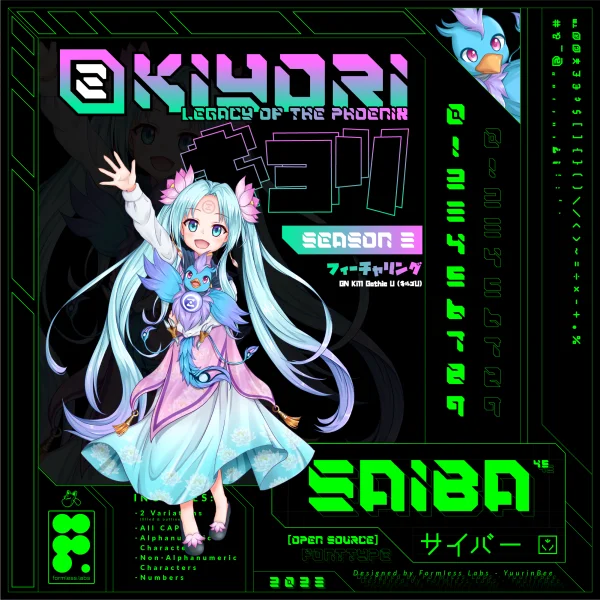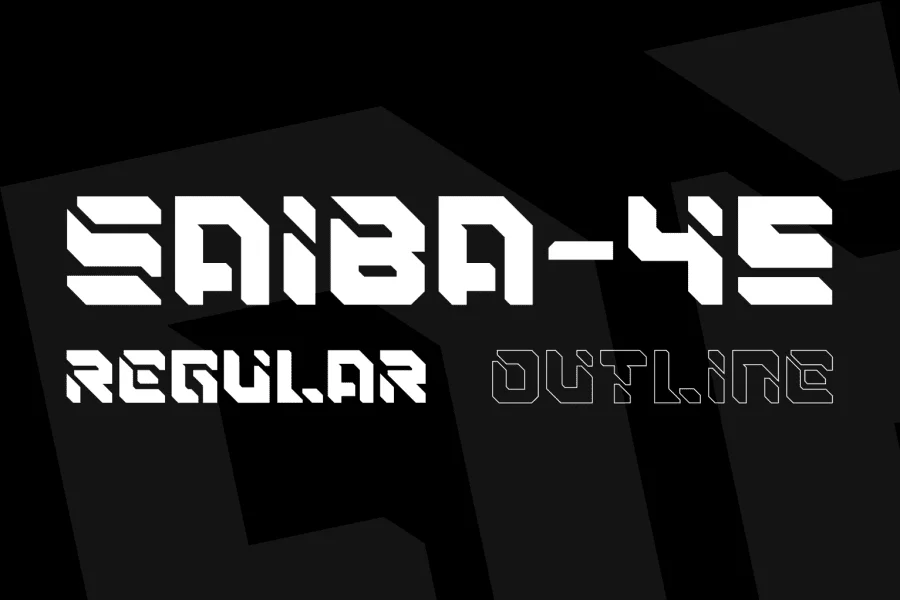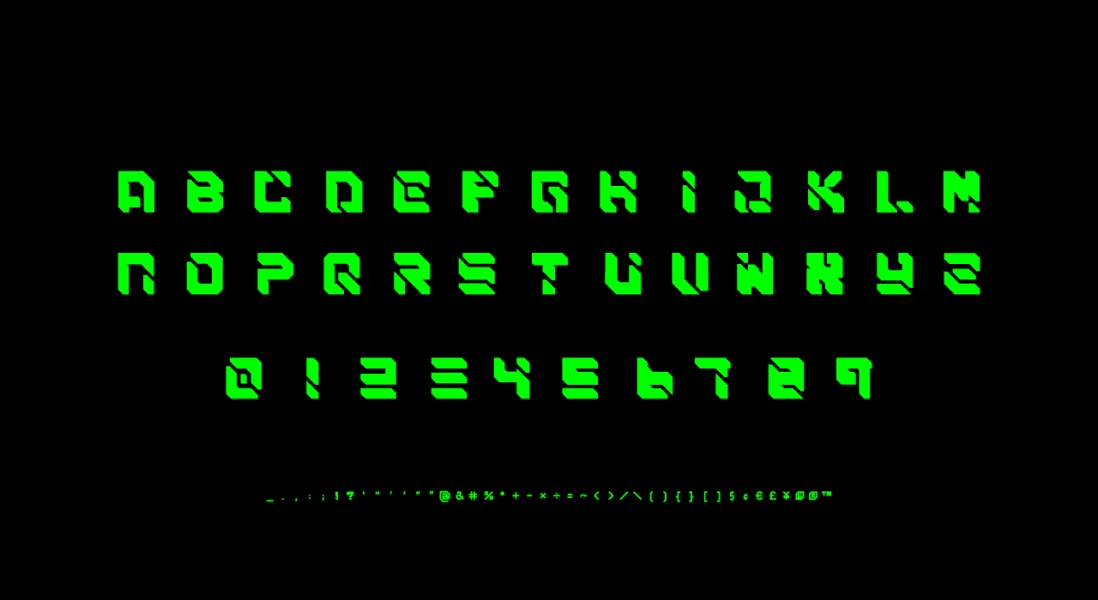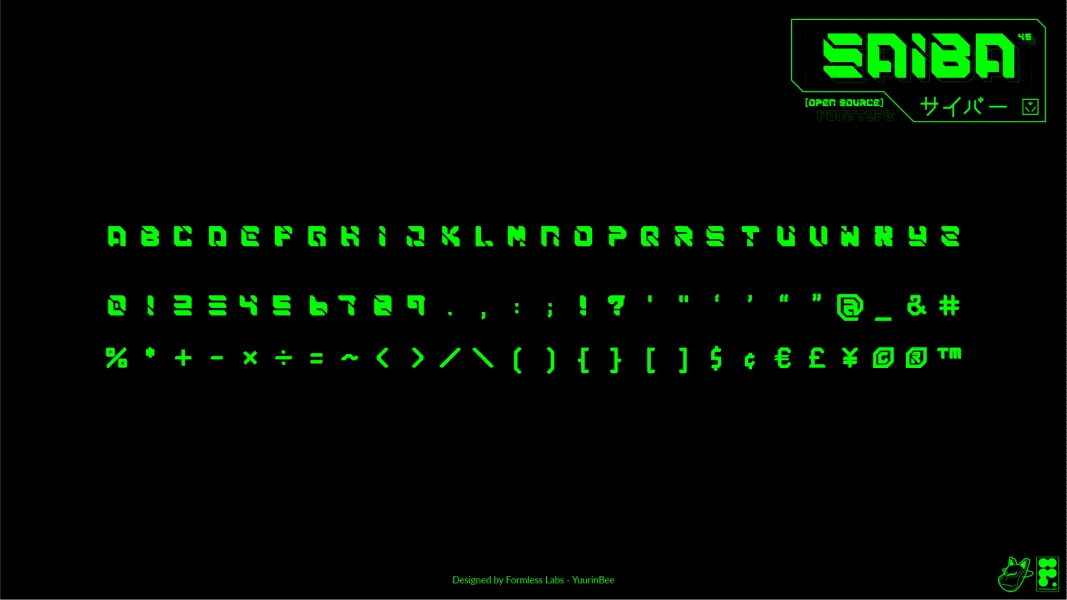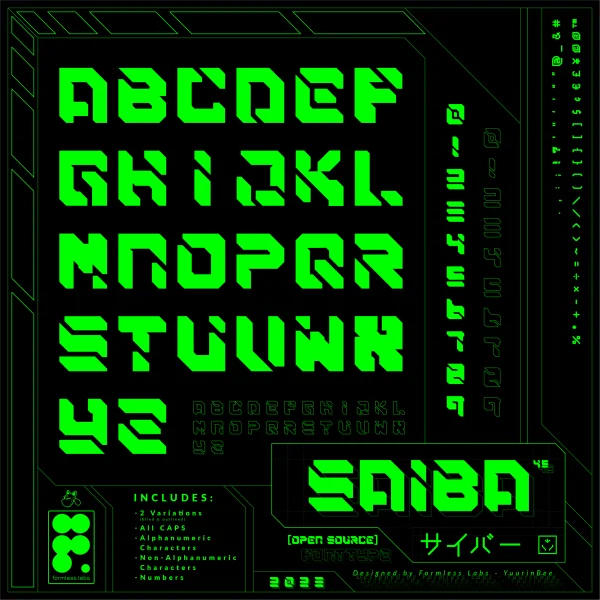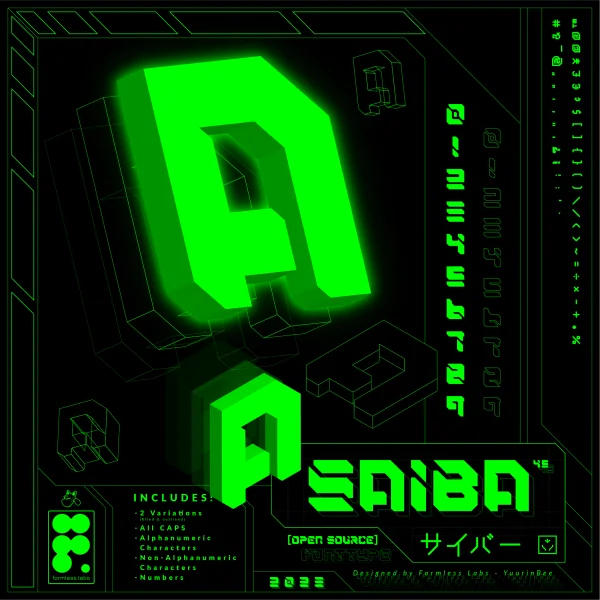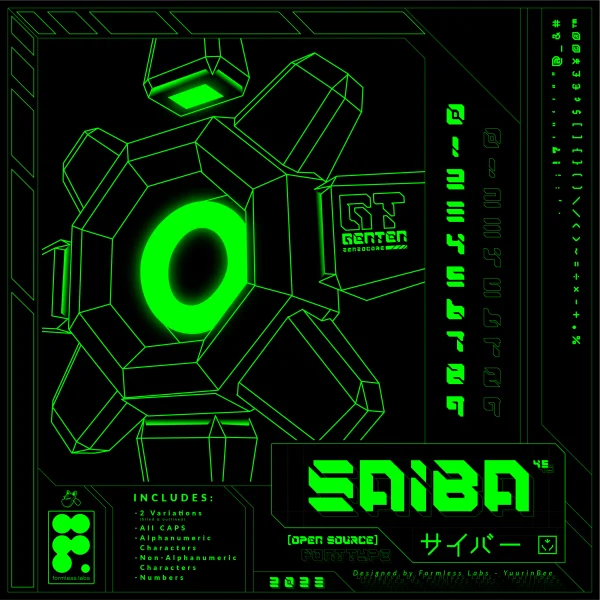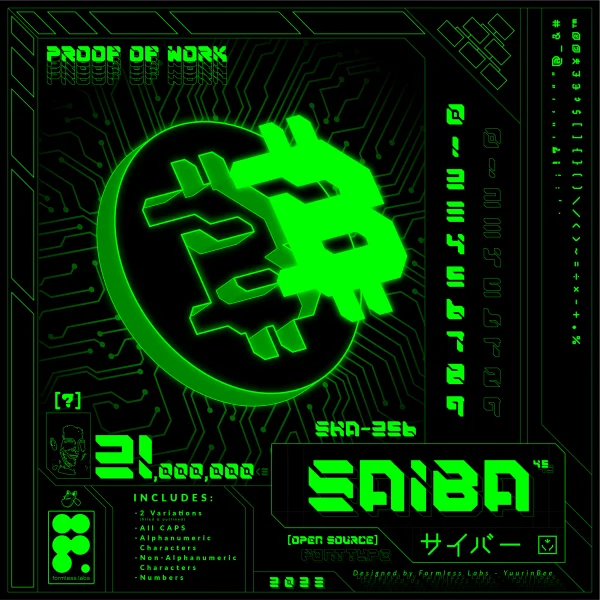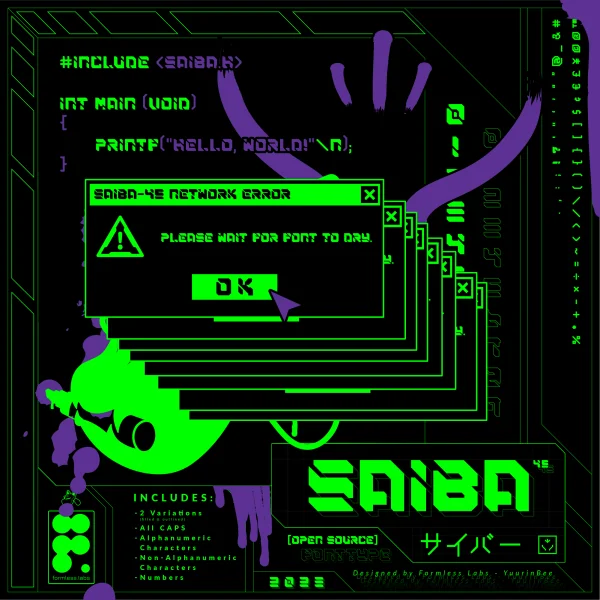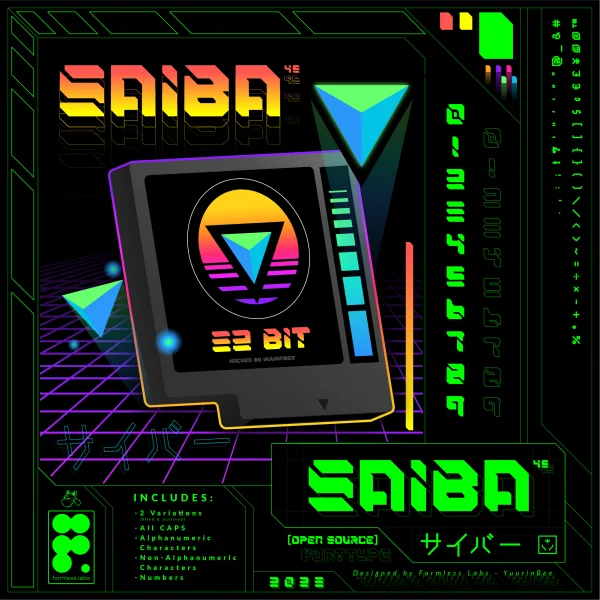
SAIBA-45 is a display font that was inspired by CyberPunk, NeoTokyo, Mecha, Manga/Anime, Retro, Tech, and Futuristic styles. It was intended to be used for short-form and large-format displays, but not limited to this type of application. Efficient ways to experiment with this font are provided in graphic examples below, but include: distinct logotypes, stylized names and text, unique vector characters, bold titles, and more. The name SAIBA was chosen as the "katakazination" (transforming English to Katakana) of the English word "Cyber" to be pronounced with Japanese vowels and syllables. The word cyber translates to サイバー in Japanese, which is pronounced as "Saiba". The 45 in SAIBA-45 is reflective of the 45 degree angles used to create the prominent edges, defining the look and feel of the font. This font has been in development since 2021.